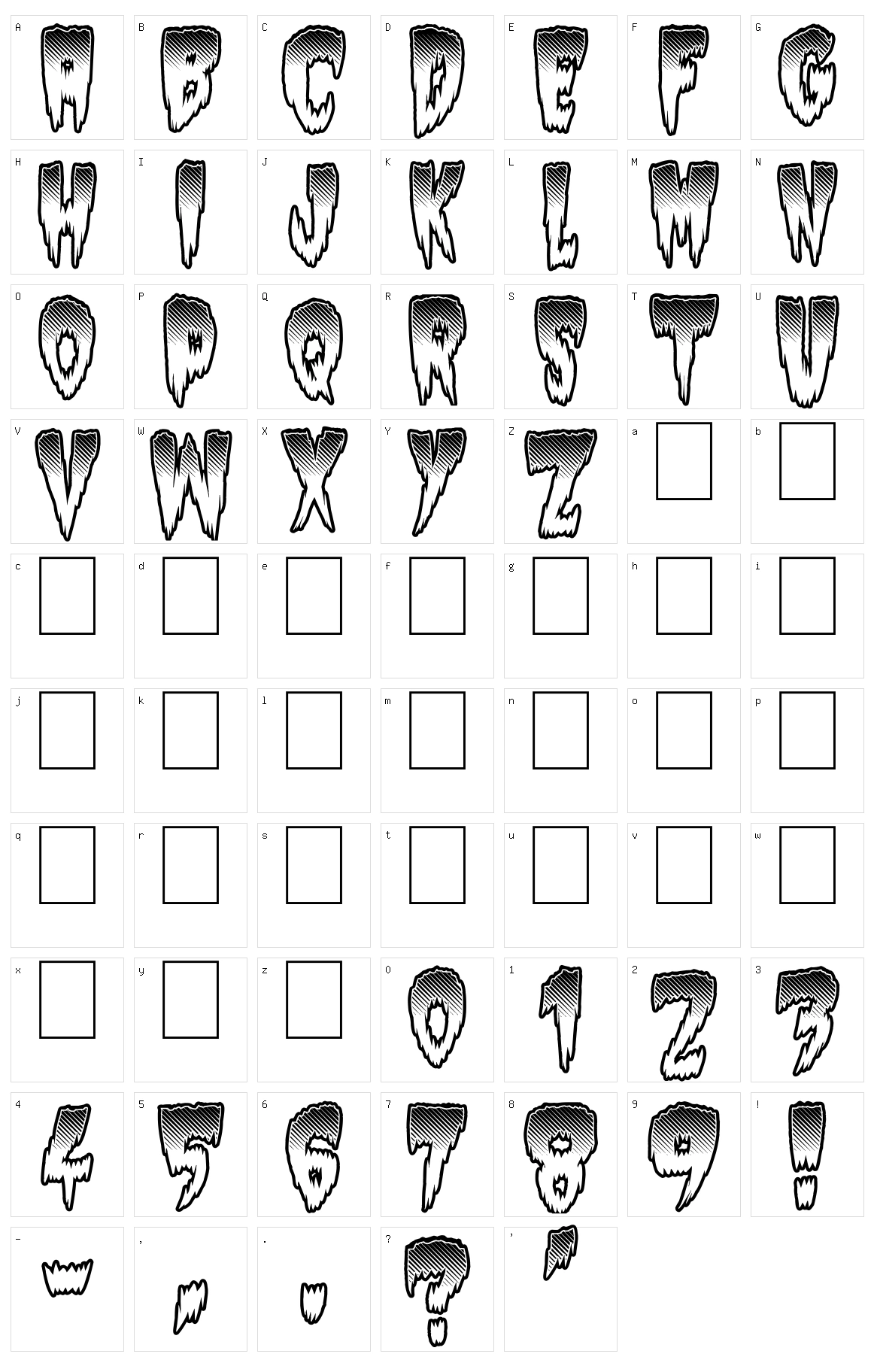
The free font Slow Death is carefully designed by imagex, showcasing a thoughtful balance of creativity and usability and falls under the Horror font style. When you download the ZIP file, it contains only 48.24 KB of font files, making it lightweight and quick to download. Please review the license details below to understand permitted usage and distribution rights. If license information is not available, we recommend using this font for personal projects only or contacting the author directly for commercial usage permissions.